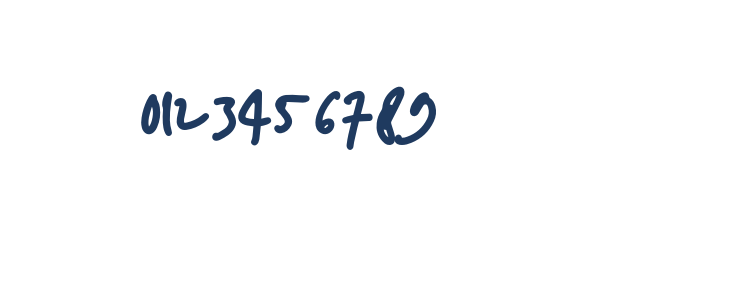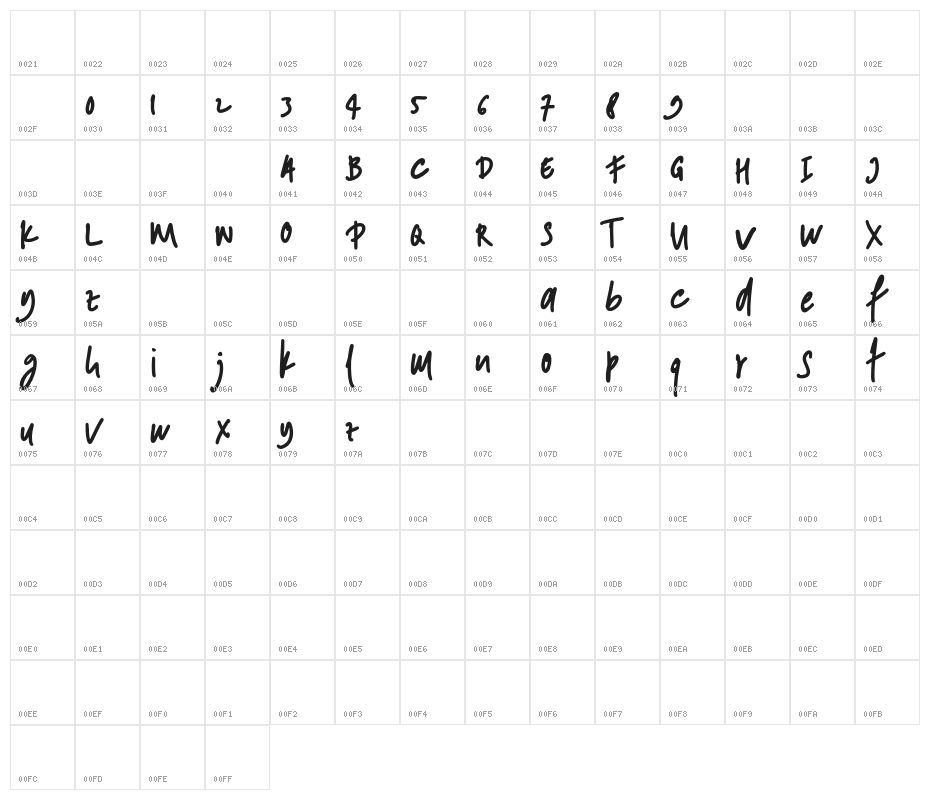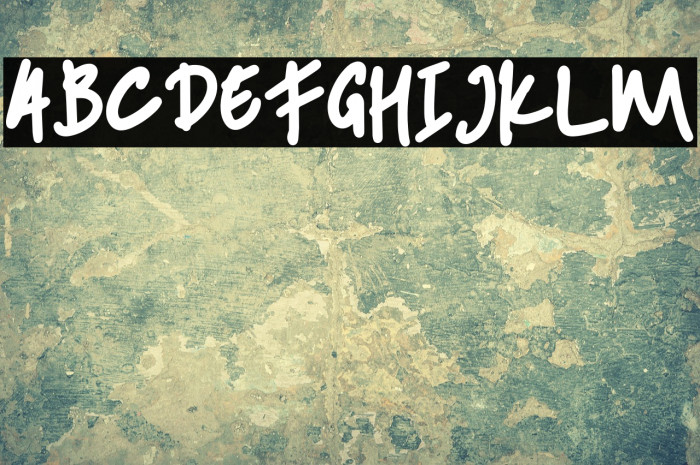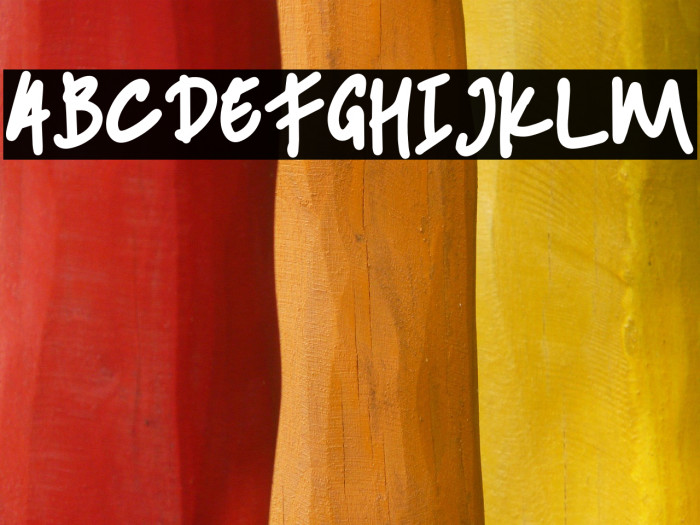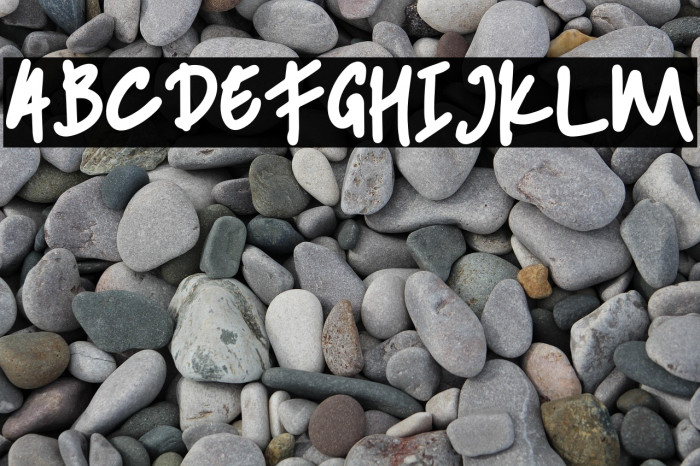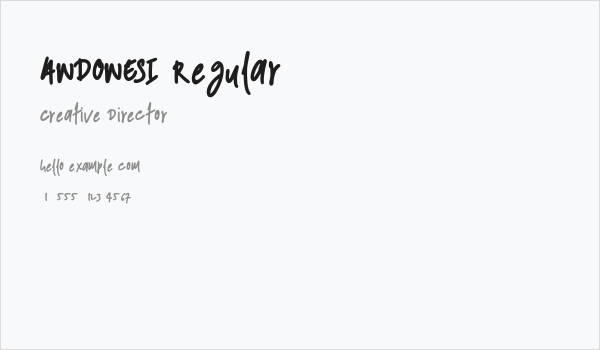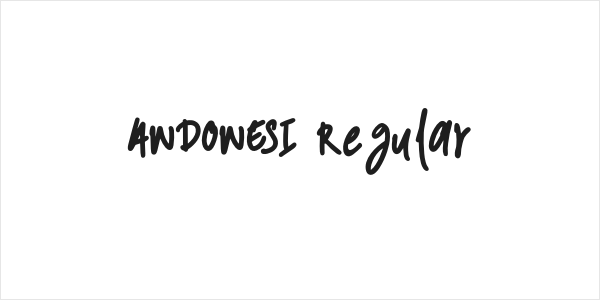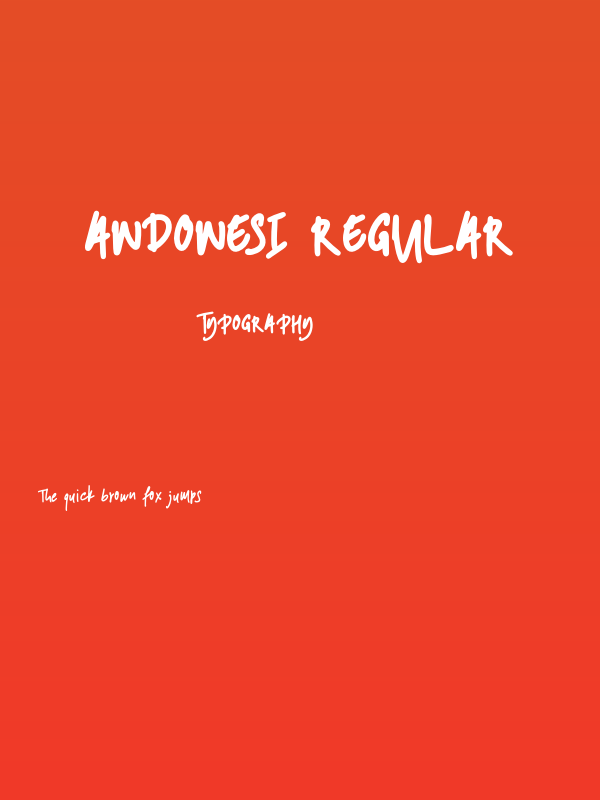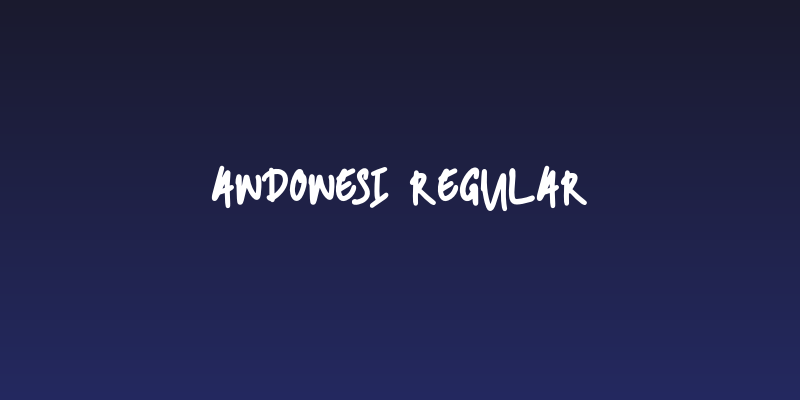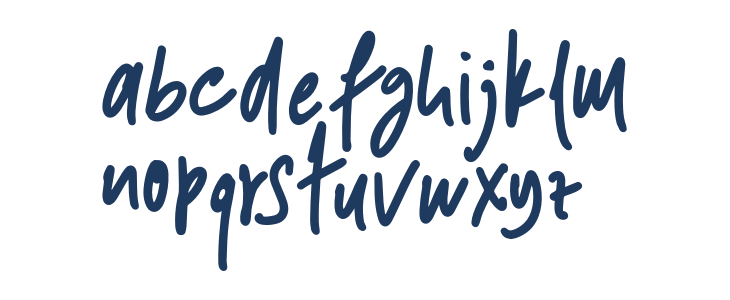
ANDONESI-Regular Font
ANDONESI-Regular Description
This font features a bold, handwritten style with a dynamic and energetic appearance. The letters are slightly slanted, giving a casual and informal feel. The strokes are thick and consistent, with a playful and artistic flair. The uppercase and lowercase letters maintain a cohesive look, while the numbers and special characters blend seamlessly into the overall design. This font is perfect for projects that require a personal touch or a creative, lively vibe.
| Use Case | Logos, Headlines, Posters |
| Proposed Projects | Ideal for greeting cards, posters, social media graphics, and branding projects that need a personal and artistic touch. |